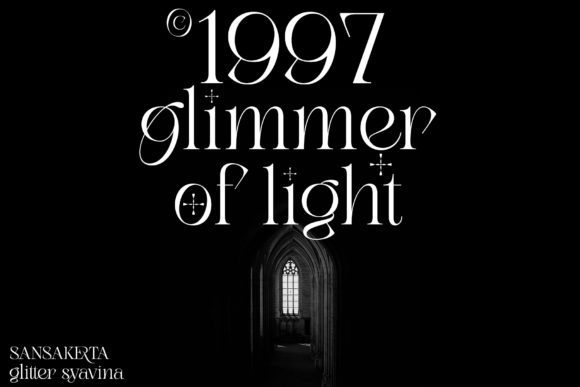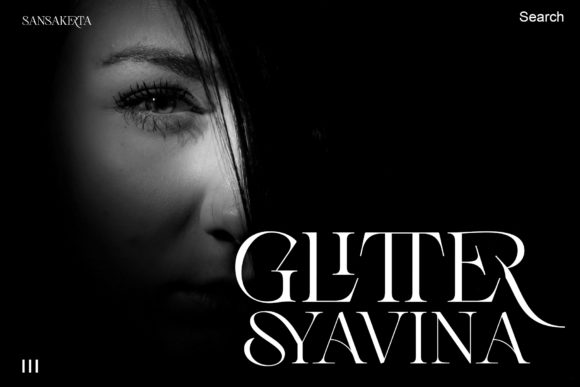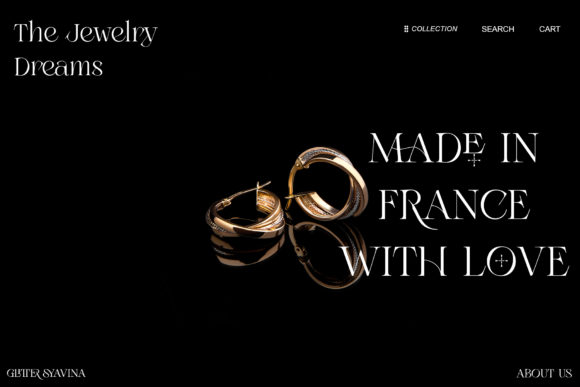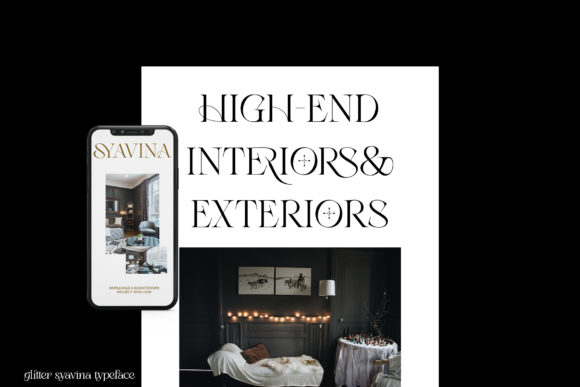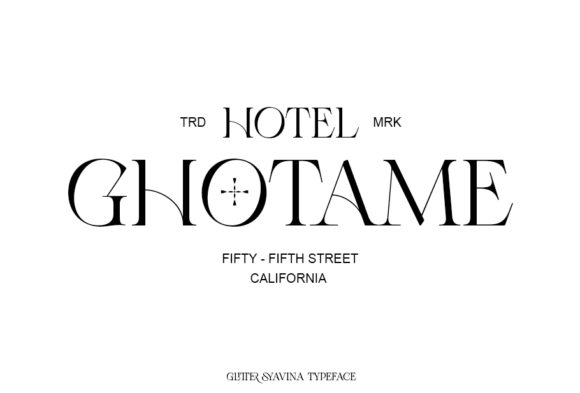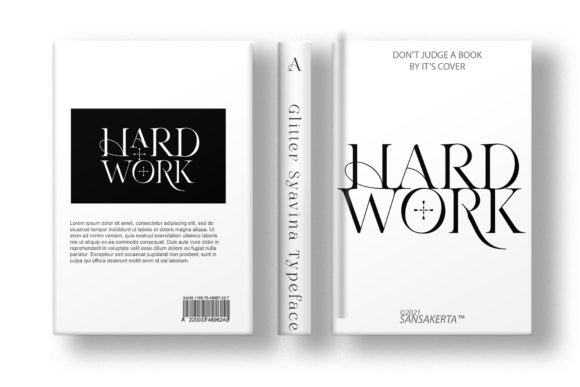
Introducing Glitther Syavina Font: Elevate Your Designs with Elegance and Assertiveness
In the world of typography, a font can make or break a design. It’s the foundation upon which the entire visual identity is built. For designers and crafters, finding the perfect font that combines elegance and assertiveness can be a daunting task. However, look no further than Glitther Syavina Font, a stunning serif font that is sure to elevate any creation.
The Perfect Blend of Elegance and Assertiveness
Glitther Syavina Font is an assertive and elegant serif font that exudes sophistication and refinement. Its unique blend of classic and modern elements makes it an incredibly versatile font, suitable for a wide range of design projects. Whether you’re working on a luxury brand, a fashion magazine, or a high-end product packaging, Glitther Syavina Font is sure to make a statement.
Key Features of Glitther Syavina Font
- Serif Elegance: Glitther Syavina Font features beautifully crafted serifs that add a touch of elegance and sophistication to any design.
- Assertive yet Refined: The font’s assertive personality makes it perfect for headlines and titles, while its refined features ensure that it remains legible and easy to read.
- Versatile: Glitther Syavina Font can be used for a wide range of design projects, from luxury brands to fashion magazines, and from product packaging to editorial design.
- Highly Legible: The font’s clear and precise letterforms ensure that it remains highly legible, even at smaller font sizes.
Why Choose Glitther Syavina Font?
With so many fonts available, why choose Glitther Syavina Font? Here are just a few reasons why this font stands out from the rest:
- Unique Personality: Glitther Syavina Font has a unique personality that sets it apart from other serif fonts. Its blend of elegance and assertiveness makes it perfect for designers who want to create a lasting impression.
- Time-Saving: With Glitther Syavina Font, you can save time and effort in your design projects. Its versatility and legibility make it easy to use and adapt to different design contexts.
- High-Quality Design: Glitther Syavina Font is designed to the highest standards, ensuring that it looks great in any design project.
How to Use Glitther Syavina Font in Your Designs
Glitther Syavina Font is incredibly easy to use and can be applied to a wide range of design projects. Here are a few ideas to get you started:
- Headlines and Titles: Use Glitther Syavina Font to create bold and eye-catching headlines and titles that grab attention.
- Branding and Identity: Use Glitther Syavina Font to create a sophisticated and elegant brand identity that reflects your values and personality.
- Editorial Design: Use Glitther Syavina Font to add a touch of elegance and refinement to your editorial designs, such as magazines, newspapers, and books.
- Packaging Design: Use Glitther Syavina Font to create stunning product packaging that stands out on store shelves.
In conclusion, Glitther Syavina Font is an exceptional serif font that offers a unique blend of elegance and assertiveness. Its versatility, legibility, and high-quality design make it an incredibly valuable asset to any designer’s font library. Whether you’re working on a luxury brand, a fashion magazine, or a high-end product packaging, Glitther Syavina Font is sure to elevate your designs and make a lasting impression.